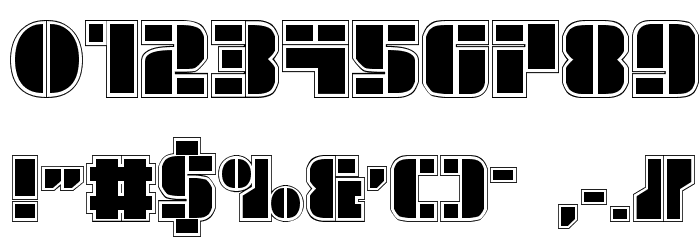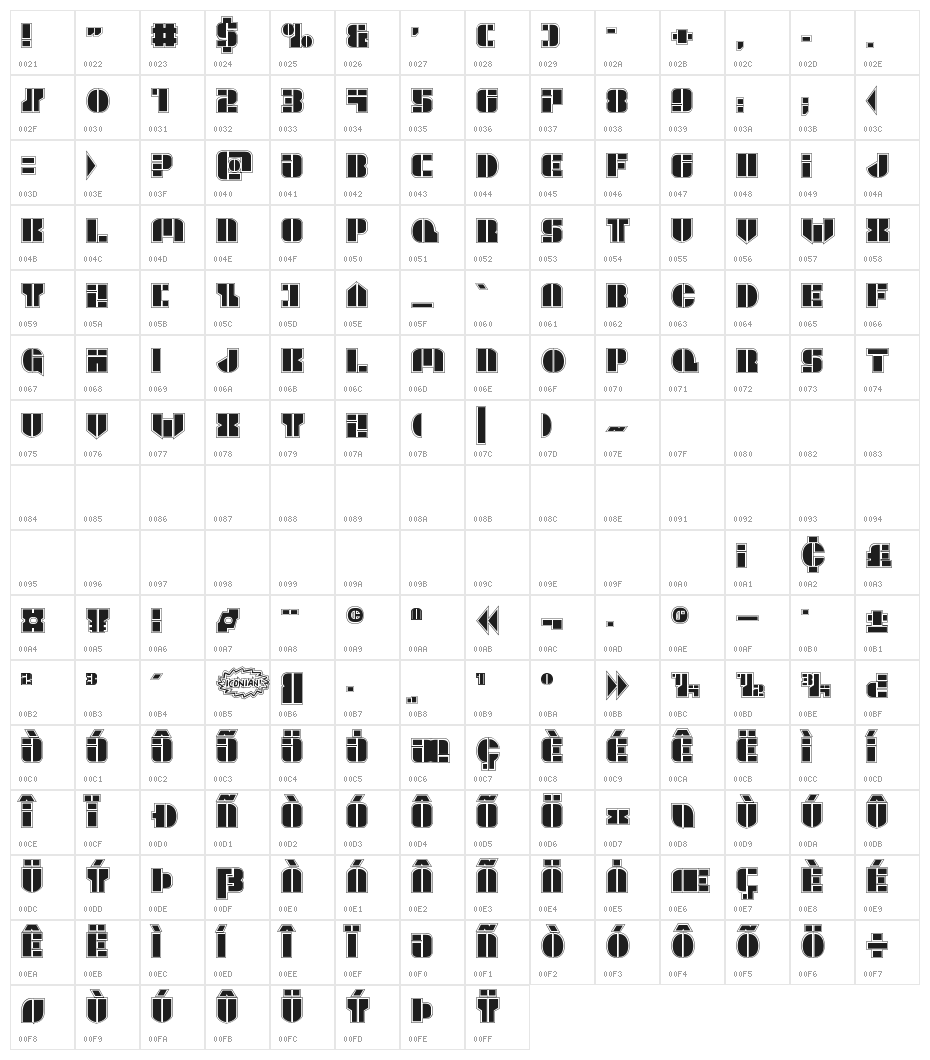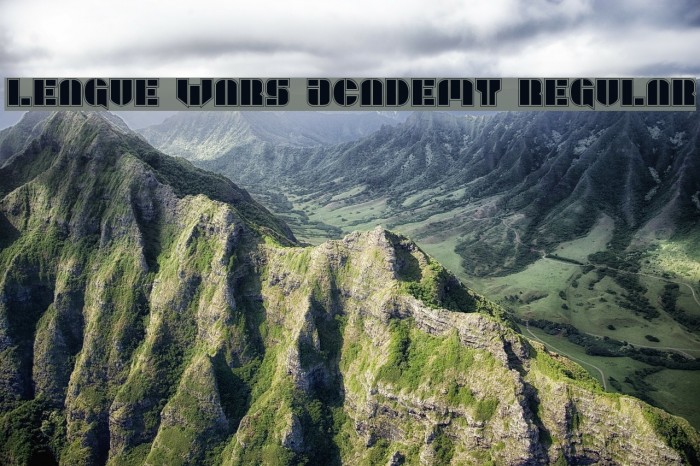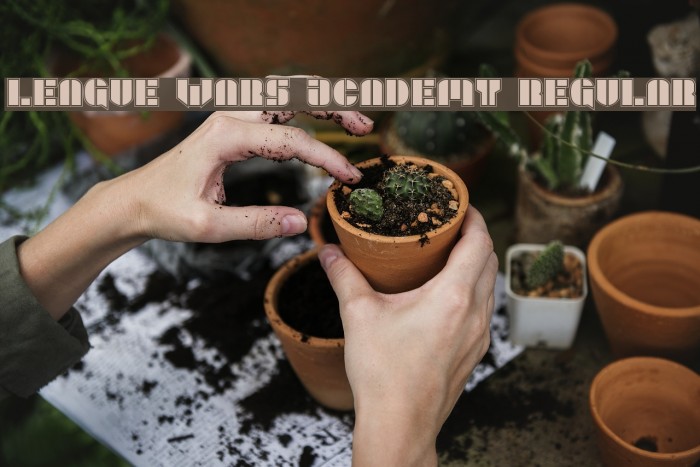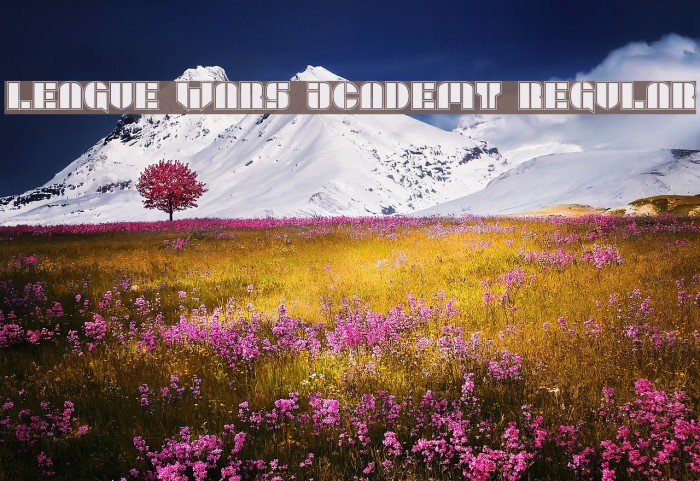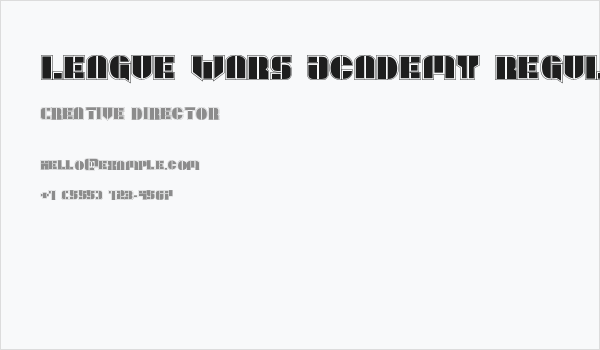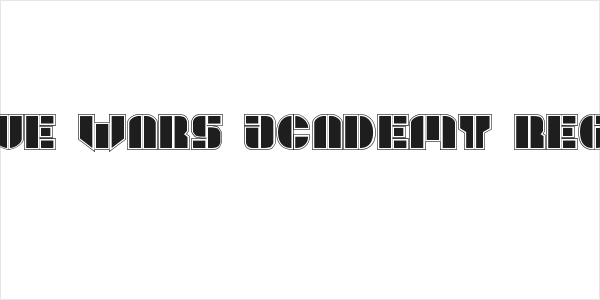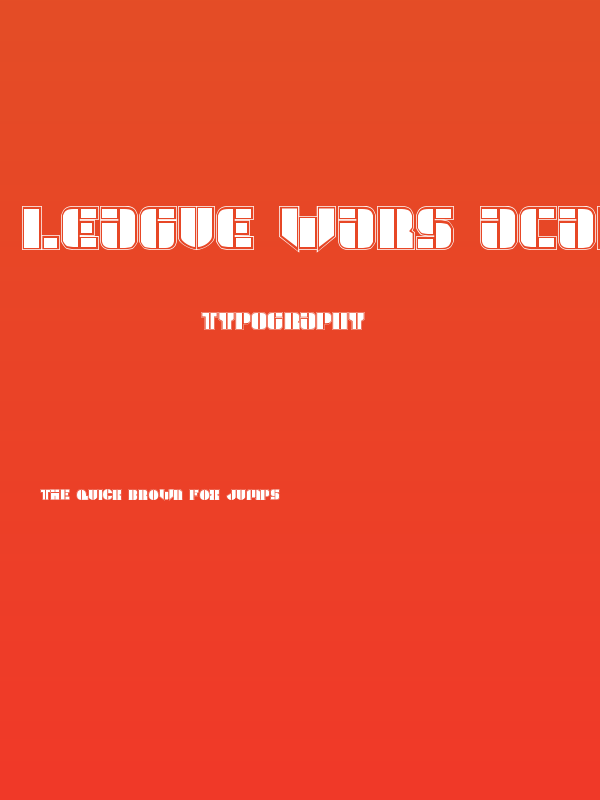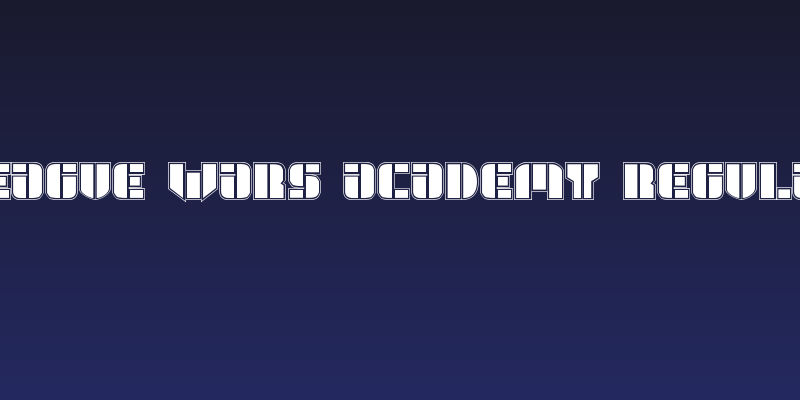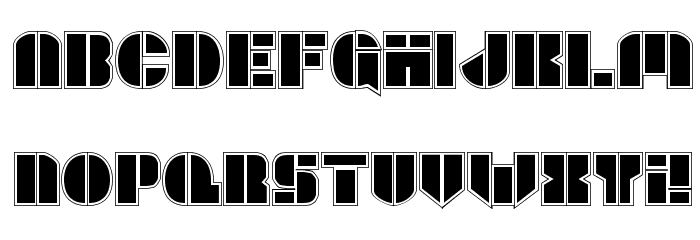
League Wars Academy Regular Font
League Wars Academy Regular Description
This font features a bold, geometric design with a distinct blocky appearance. Each character is crafted with a strong, angular structure, giving it a futuristic and industrial feel. The letters are uniformly wide, creating a sense of balance and symmetry. The font's unique style is accentuated by its thick strokes and minimal contrast, making it highly legible even at smaller sizes. The uppercase and lowercase letters share a consistent design, while the numerals and special characters maintain the same bold aesthetic, ensuring a cohesive look across all text elements.
| Overall Style | Futuristic, Industrial |
| Proposed Projects | Ideal for sci-fi themed projects, video game titles, posters, and branding that requires a modern, edgy look. |